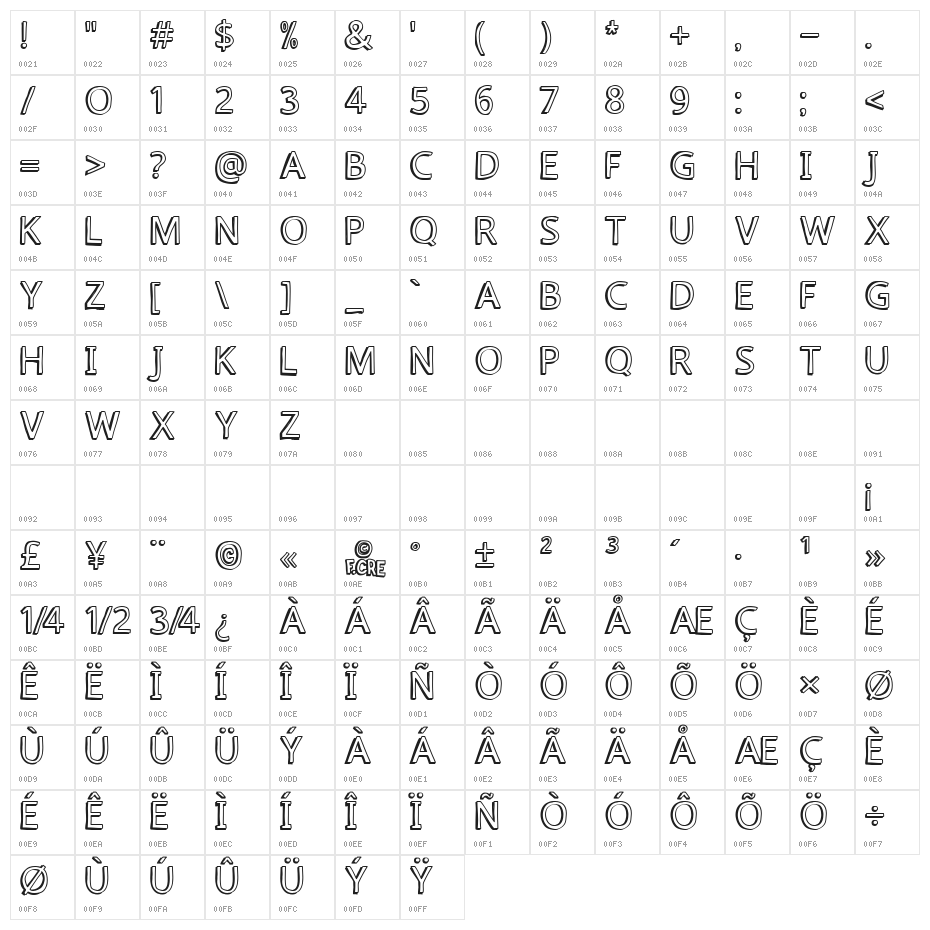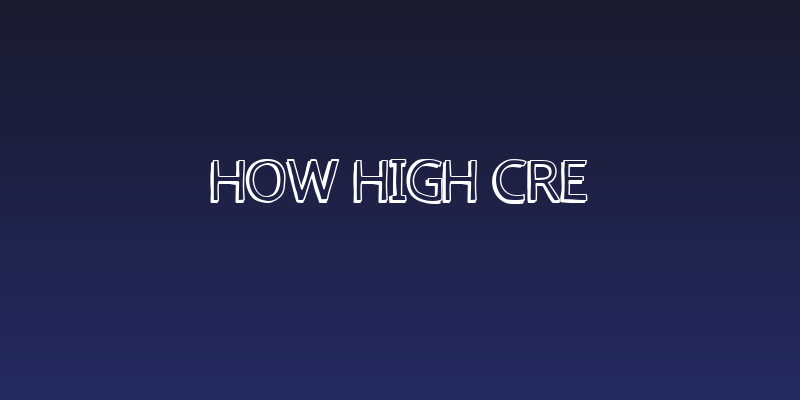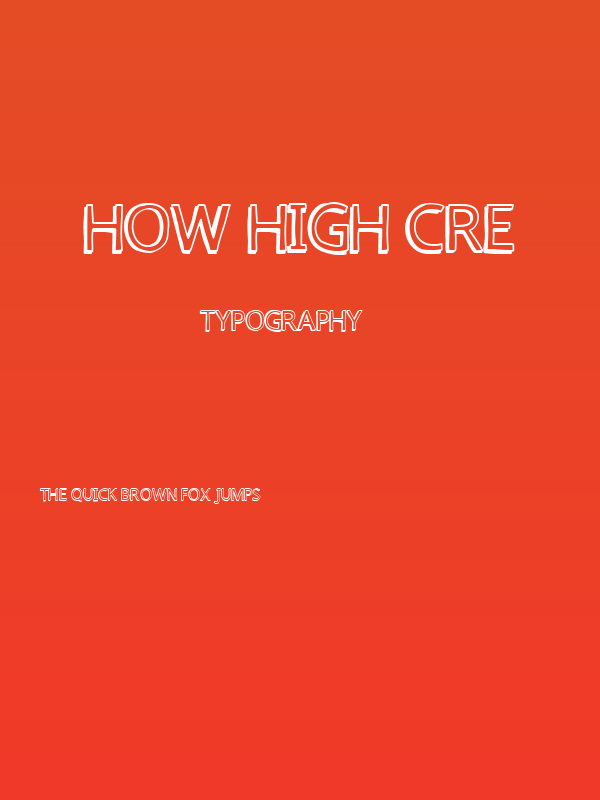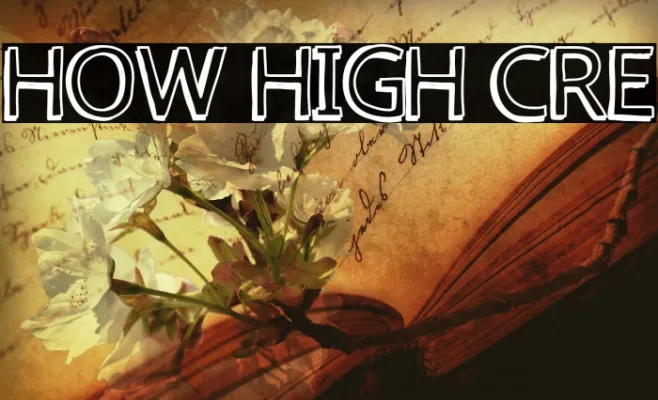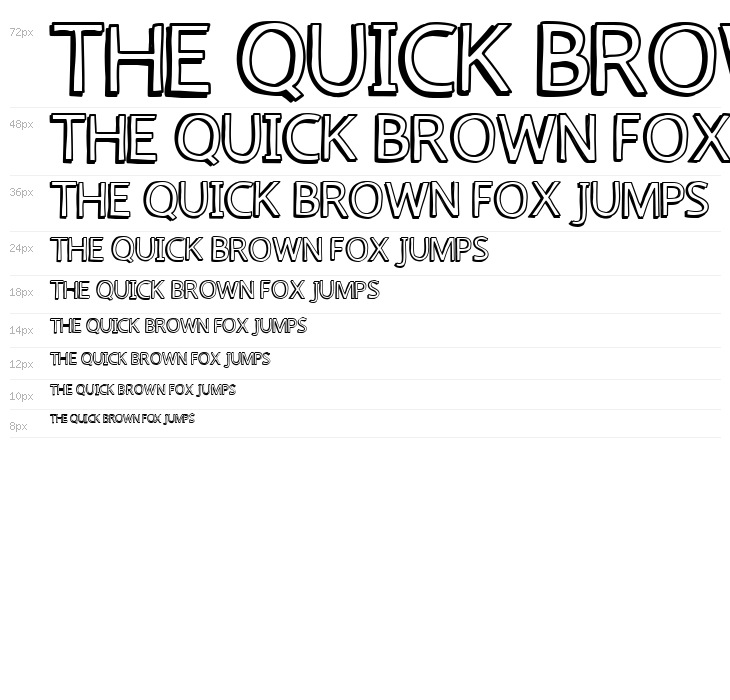
how high cre Font
how high cre Description
This font features a bold, outlined style that gives it a playful and dynamic appearance. The letters are uppercase and lowercase, with a consistent thickness in the strokes, creating a uniform look. The numbers and special characters follow the same design, ensuring cohesion across all elements. The font's outline effect adds a layer of depth, making it stand out in any design. It's suitable for projects that require a fun and engaging typeface, such as posters, children's books, or creative branding.
| Overall Style | Playful, Dynamic |
| Proposed Projects | Ideal for posters, children's books, creative branding, and any project needing a fun, engaging typeface. |